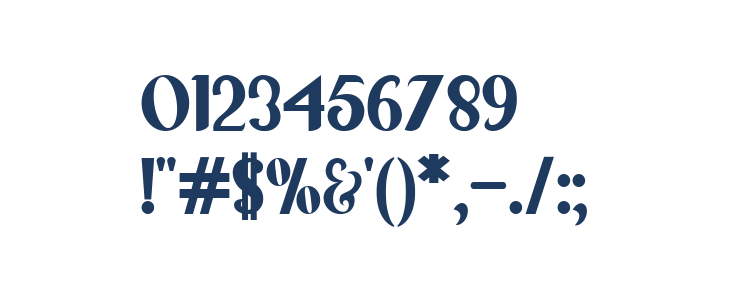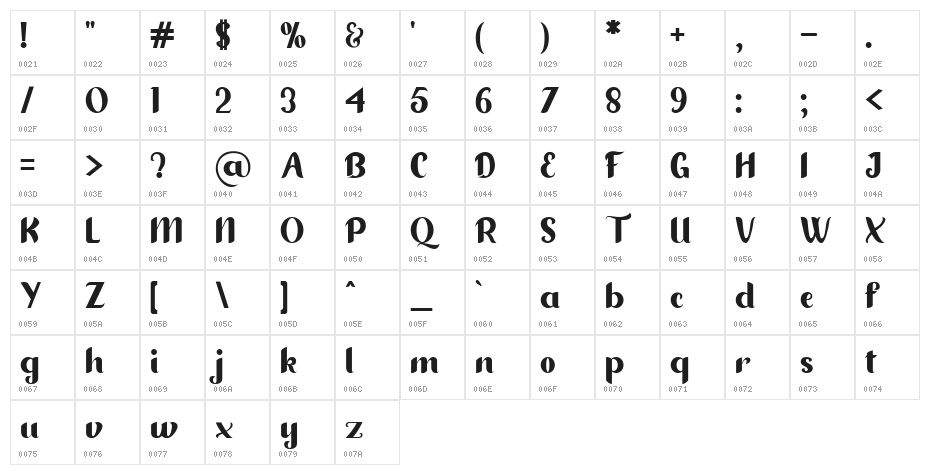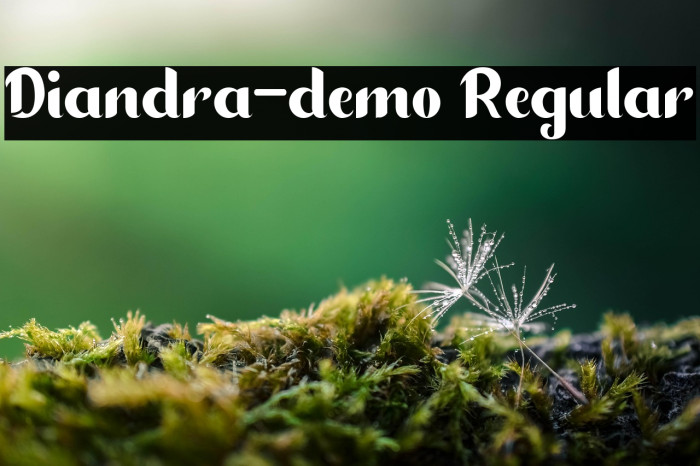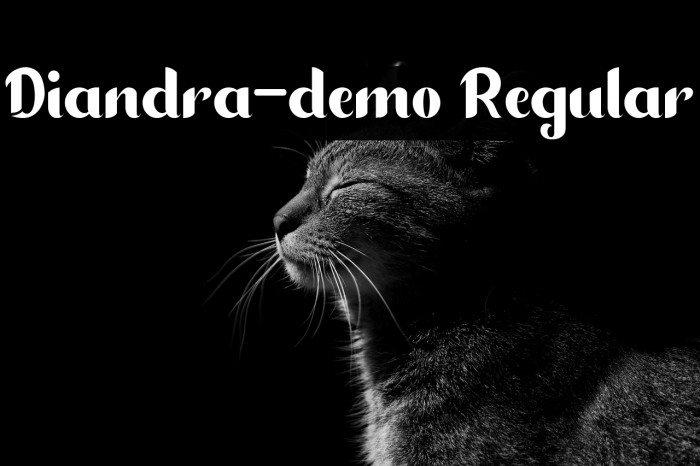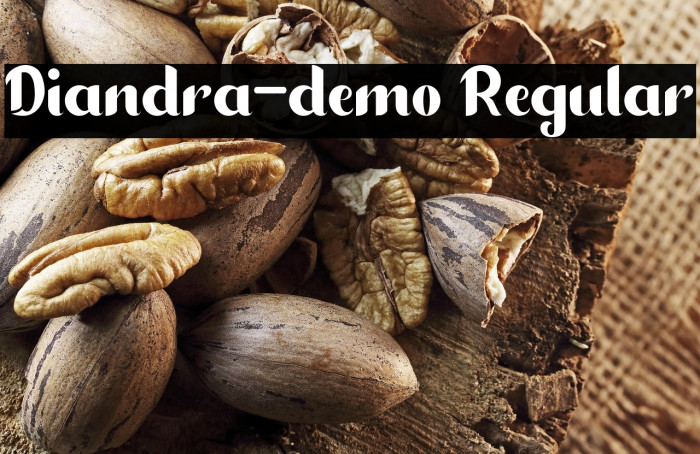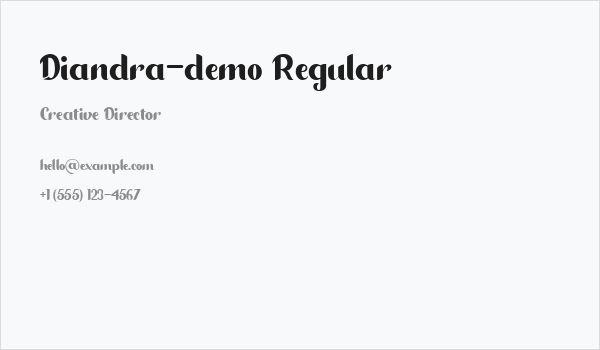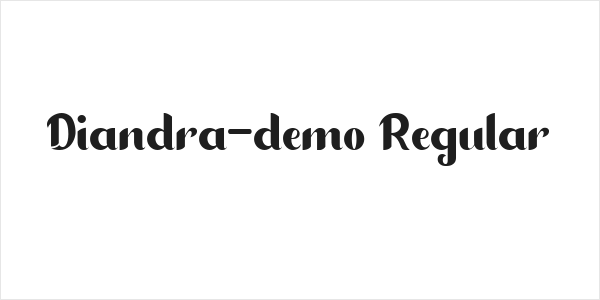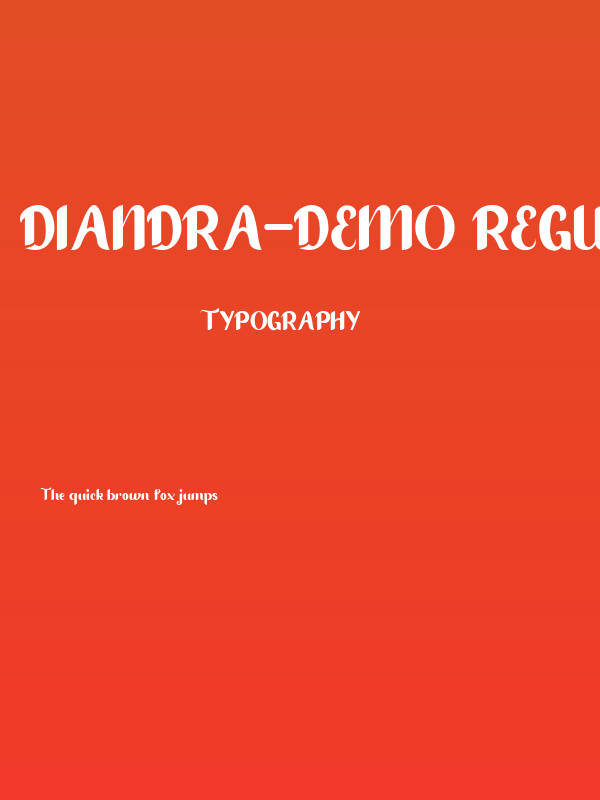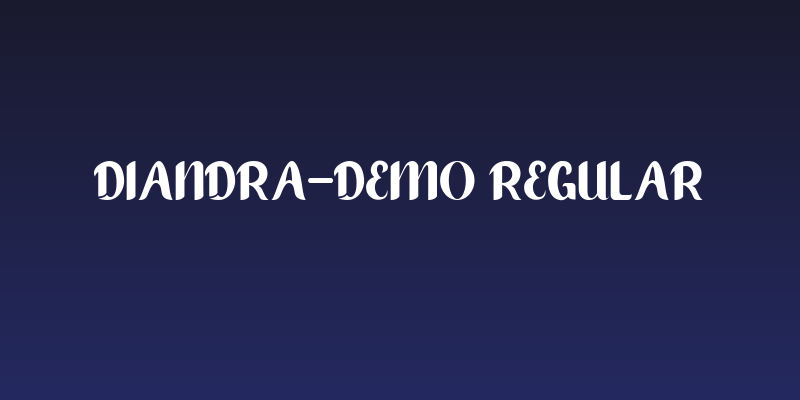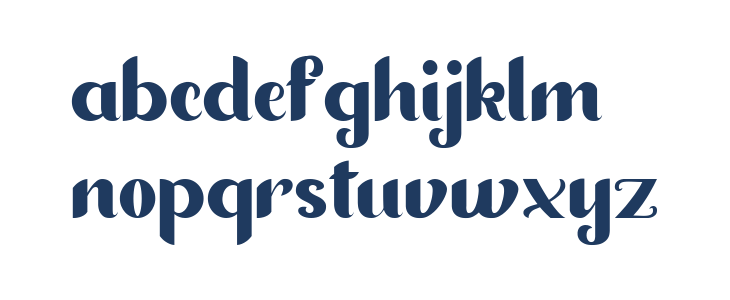
Diandra-demo Regular Font
Diandra-demo Regular Description
This font features a bold and expressive style with a unique blend of modern and vintage elements. The uppercase letters are characterized by their thick strokes and slight curves, giving them a strong presence. The lowercase letters maintain a consistent weight, with rounded edges that add a touch of softness. The numerals are bold and easily readable, while the special characters are designed with flair, making them stand out. Overall, this font combines elegance with a playful twist, making it versatile for various design needs.
| Overall Style | Modern, Vintage |
| Proposed Projects | Ideal for branding, poster design, and headlines that require a strong visual impact. |